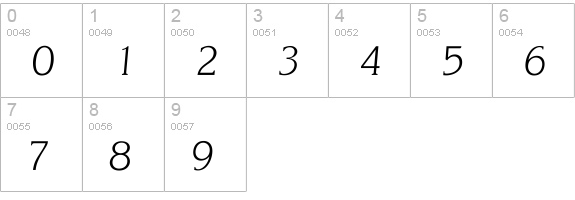
Ikorinth Xlight Font Details
Introducing Ikorinth Xlight, a stunning and versatile font that effortlessly combines elegance with modernity. This exquisite typeface is designed to bring a touch of sophistication to any project, whether it be print or digital. Ikorinth Xlight is characterized by its delicate and refined letterforms, exuding a sense of grace and sophistication. Each letter is meticulously crafted, with intricate details that give it a unique and captivating appearance. Whether used for headings, body text, or logos, this font effortlessly captivates attention and adds a touch of class to any design. One of the standout features of Ikorinth Xlight is its versatility. It seamlessly adapts to various design styles, making it suitable for a wide range of applications. From high-end fashion magazines to luxury brand identities, this font effortlessly elevates any design to new heights of elegance. But what truly sets Ikorinth Xlight apart is its availability as a free download. Yes, you heard that right! This exceptional font is freely available to download at FontsMarket.com. Now, you can enjoy the beauty and sophistication of Ikorinth Xlight without worrying about breaking the bank. Take advantage of this incredible opportunity and enhance your design projects with this remarkable font. So, whether you're a professional designer, an aspiring artist, or simply someone who appreciates the beauty of typography, Ikorinth Xlight is a must-have addition to your font collection. Download it for free at FontsMarket.com and unlock a world of elegance and creativity. Say goodbye to ordinary and embrace the extraordinary with Ikorinth Xlight.